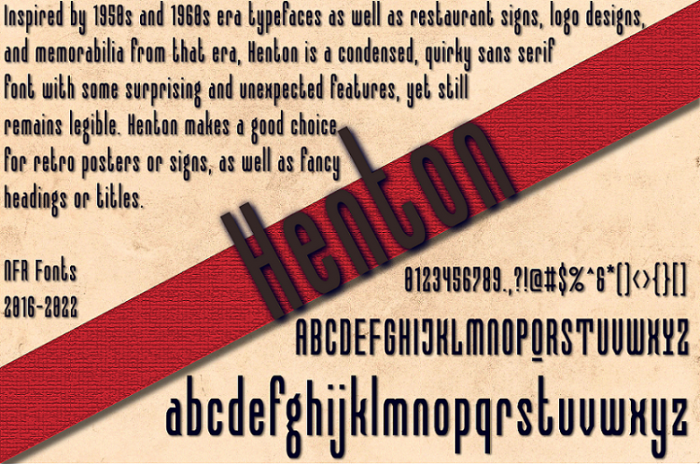
Inspiration - An old Shure microphone box from the sixties that me and my dad found while digging through some of his old stuff.
Punctuation coming soon, hope you enjoy!
A sample. Based on the original.
Really nice job. This font would look great on a poster
Decided I liked the double story g better for this one. Single story g can be found at U+0261. Fixed all the issues this font had, added a much wider character set, and cleaned up all the letters and spacing. Ended up changing the name from 5Shure to Henton as I'm probably gonna put this one on Creative Fabrica with my other work. Let me know what you guys think.